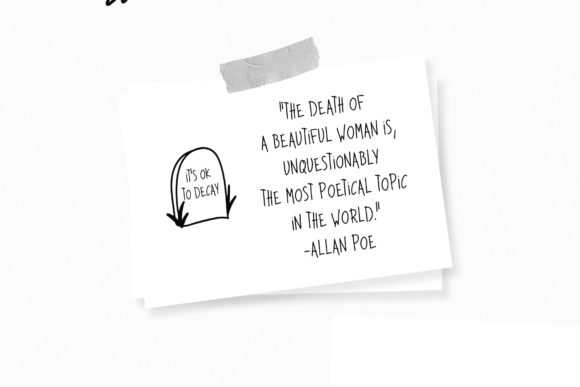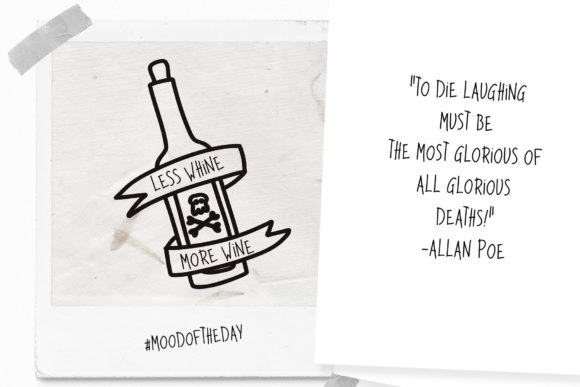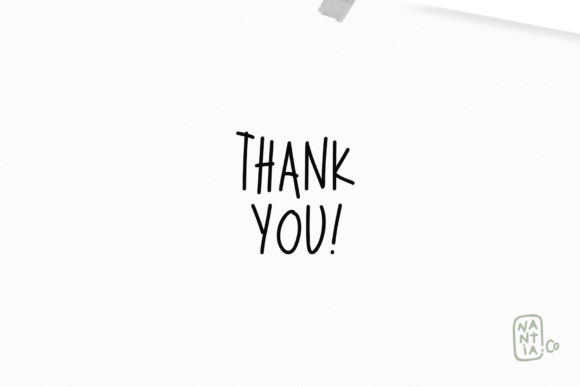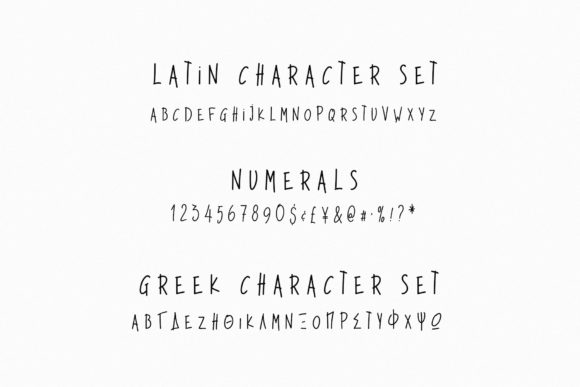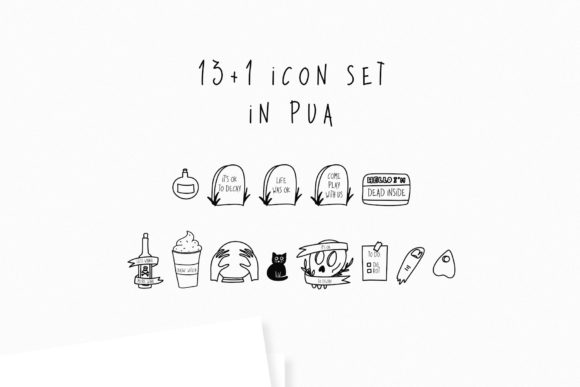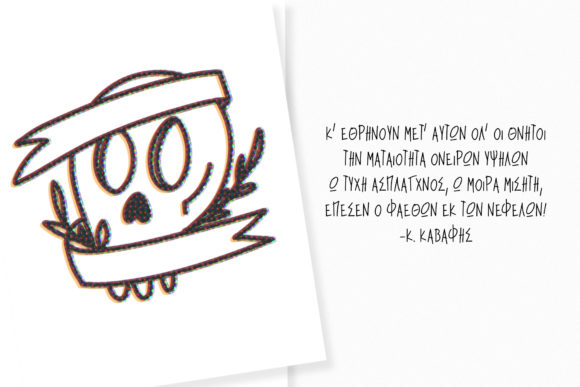
Discover the Whimsical World of Dead Inside Font
Are you tired of using the same old fonts in your designs? Look no further! If you’re a designer, crafter, or DIY enthusiast, you’ll love the playful and simple handwritten font known as Dead Inside. This charming font is reminiscent of a kid’s handwriting, making it perfect for projects that require a touch of innocence and whimsy.
What is Dead Inside Font?
Dead Inside is a digital font that mimics the handwriting of a child. Its playful and carefree nature makes it an excellent choice for a variety of design projects, from crafting and scrapbooking to digital graphics and branding. The font’s simplicity and legibility ensure that your message is conveyed clearly, while its quirky charm adds a dash of personality to your work.
Key Features of Dead Inside Font
- Playful Handwritten Style: Dead Inside boasts a handwritten style that’s playful, simple, and evocative of a child’s handwriting.
- Fun Set of Icons: What sets Dead Inside apart from other fonts is its inclusion of a fun set of icons. These icons can be used to add visual interest and personality to your designs.
- Easy to Read: Despite its playful nature, Dead Inside is remarkably legible, making it suitable for use in a wide range of applications, from titles and headings to body text.
- Versatile: Whether you’re working on a digital project or a craft, Dead Inside can be used in various formats, including print and digital media.
Uses of Dead Inside Font
The versatility of Dead Inside makes it an excellent addition to any designer’s toolkit. Here are some popular uses for this delightful font:
- Crafting and Scrapbooking: Add a personal touch to your scrapbook pages, cards, and other craft projects with Dead Inside’s charming handwriting style.
- Digital Graphics: Use Dead Inside in your digital graphics, such as blog headers, social media graphics, and digital invitations.
- Branding and Packaging: Give your brand a playful edge with Dead Inside. It’s perfect for businesses that want to convey a sense of fun and approachability.
- Educational Materials: Dead Inside’s clear and playful style makes it an excellent choice for educational materials, such as worksheets, posters, and classroom decorations.
Tips for Using Dead Inside Font
To get the most out of Dead Inside, consider the following tips:
- Mix and Match: Combine Dead Inside with other fonts to create visual interest. Its playful style pairs well with both serif and sans-serif fonts.
- Use Icons Wisely: The icons that come with Dead Inside can add a fun touch to your designs. Use them sparingly to avoid visual overload.
- Experiment with Colors: Dead Inside looks great in a variety of colors. Experiment with different hues to find the perfect match for your design.
Dead Inside Font is a delightful addition to any designer’s arsenal. Its playful, simple, and handwritten style, coupled with its fun set of icons, makes it the perfect choice for designers and crafters looking to add a touch of whimsy to their projects. Whether you’re working on digital graphics, crafting, or branding, Dead Inside is sure to bring a smile to your face and a personal touch to your work.